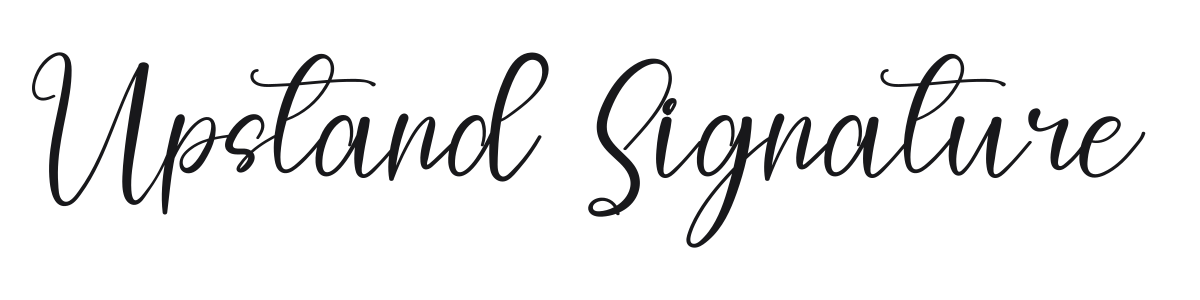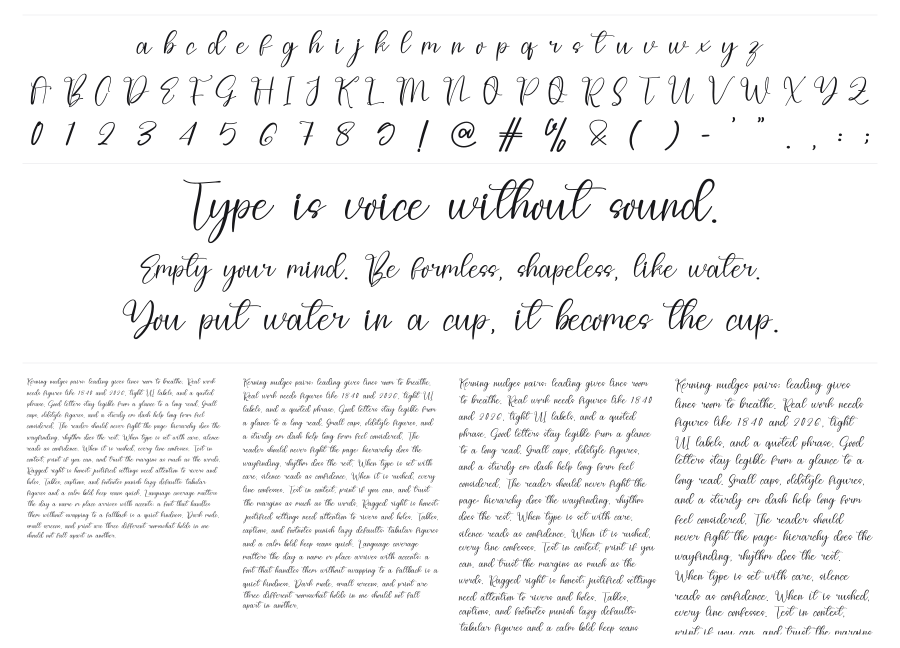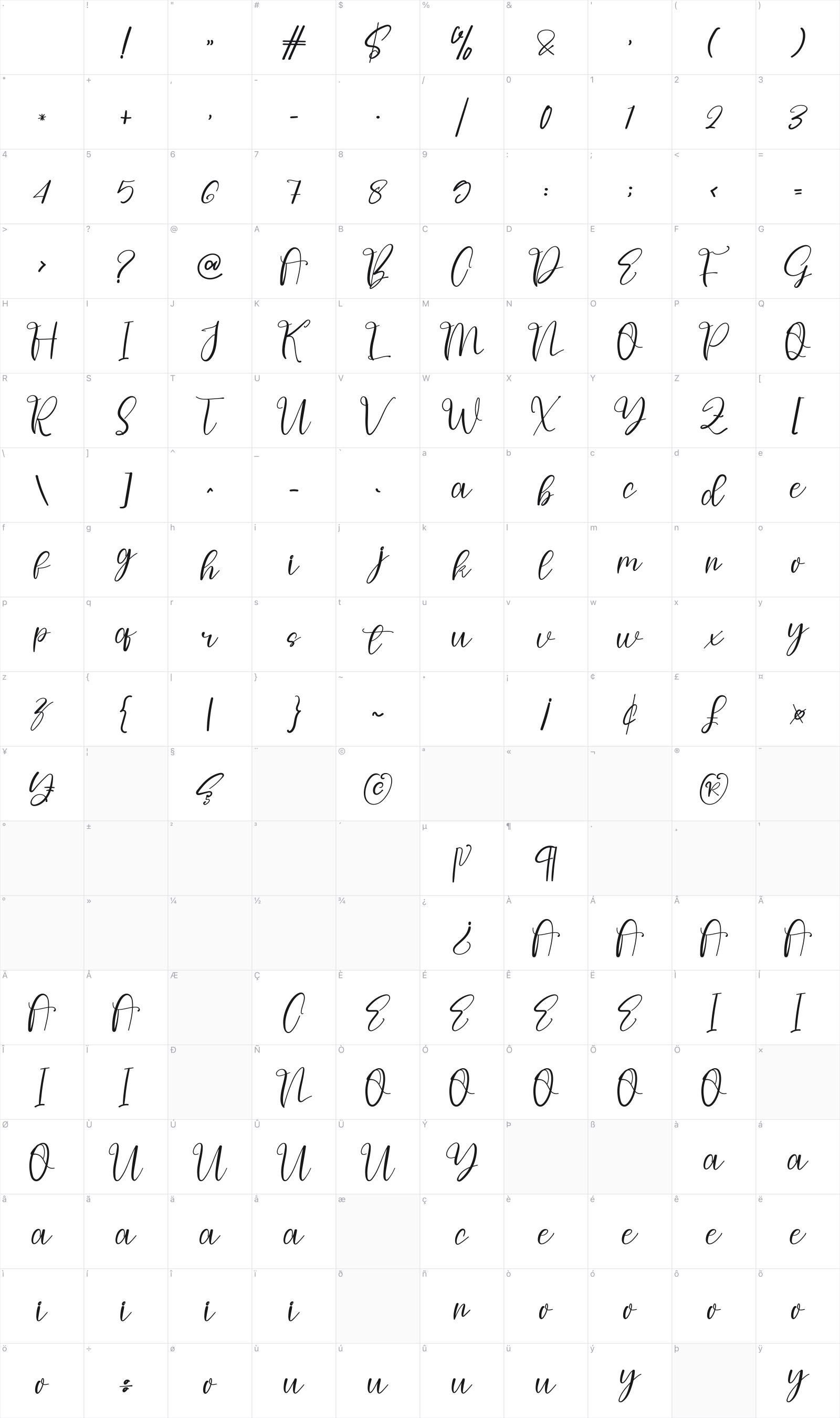
Upstand Signature
Upstand Signature is a flowing casual script with bouncy baseline rhythm and looped, swashing strokes that feel confident without being stiff. The moderate stroke contrast between thick downstrokes and delicate hairlines gives it just enough calligraphic polish for upscale branding. It reads as naturally handwritten, making it a strong choice for wedding stationery, boutique packaging, and lifestyle branding.